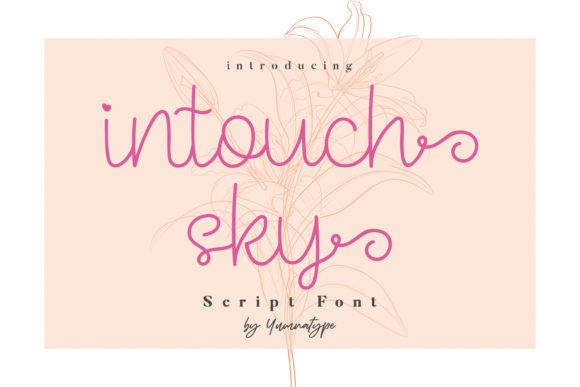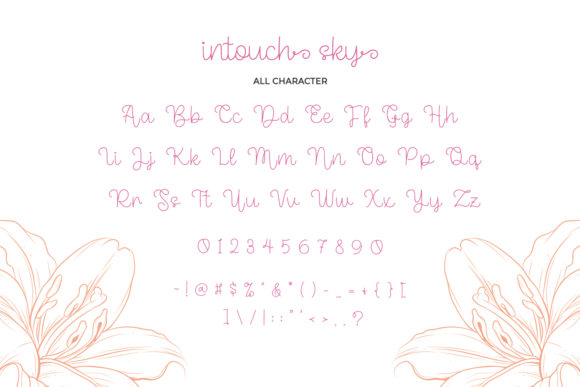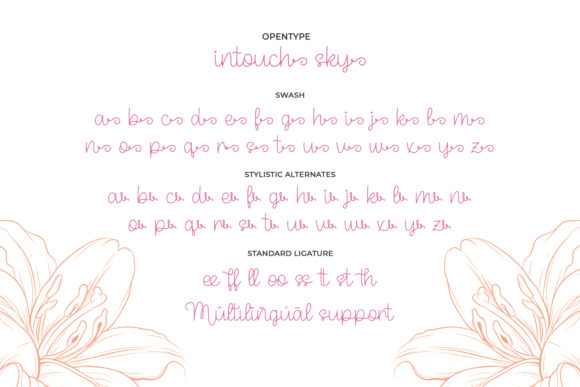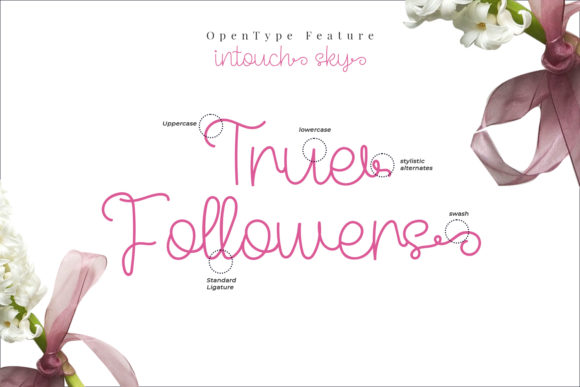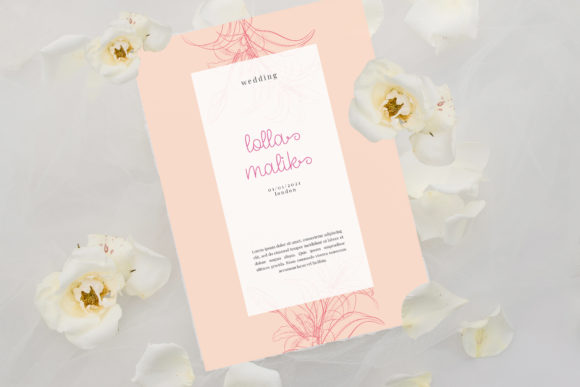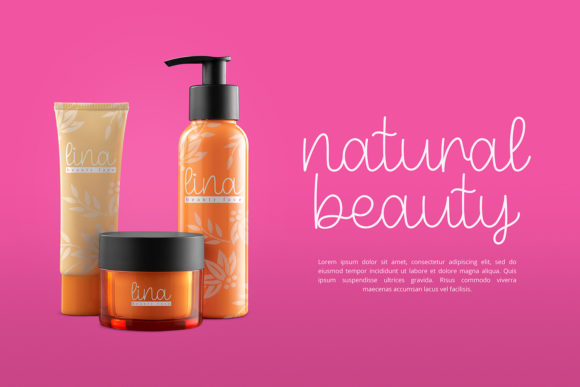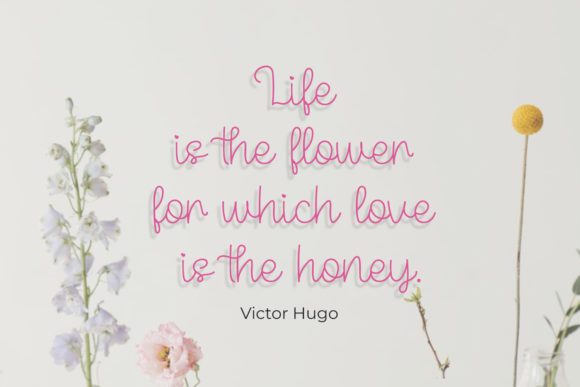
Intouch Sky Font
About Intouch Sky Font
Intouch Sky is a delicate, elegant and flowing handwritten font. It has beautiful and well balanced characters and as a result, it matches a wide pool of designs. Add it to your most creative ideas and notice how it makes them come alive!